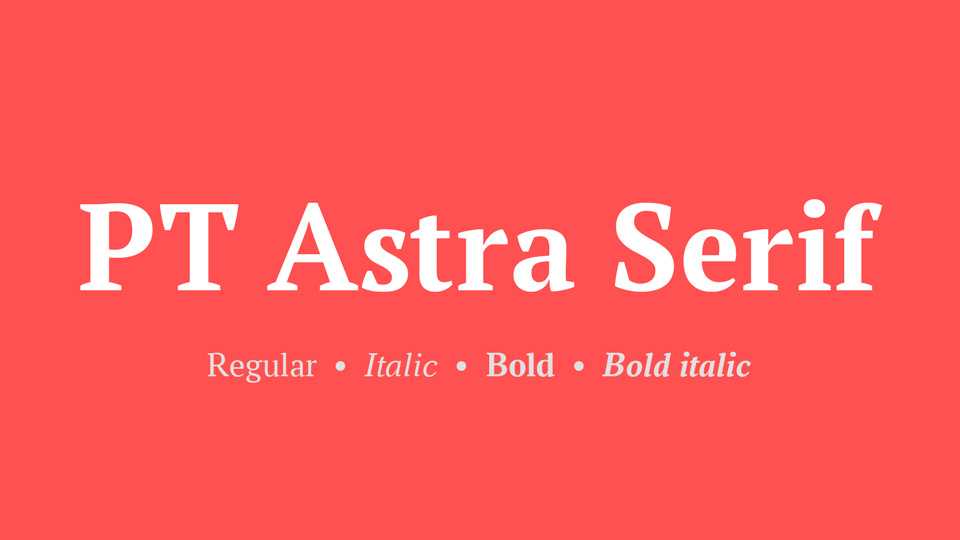
Download PT Astra Serif, a serif font family based on the PT Serif and modified so that the fonts fit the standards of paperwork, the standard for which is Times New Roman.
Designer: Paratype